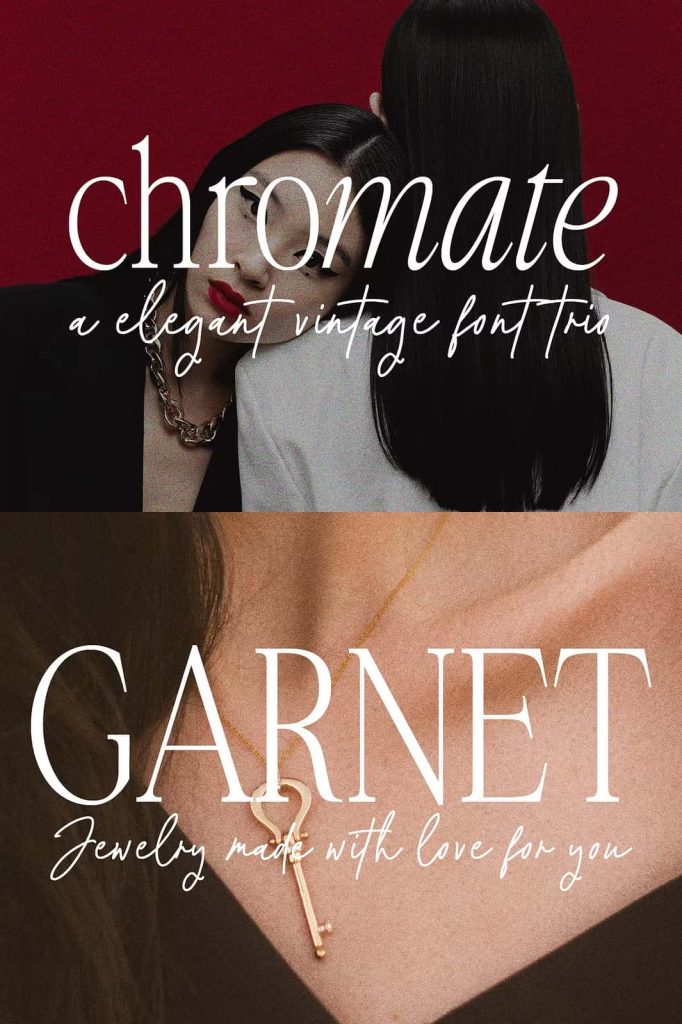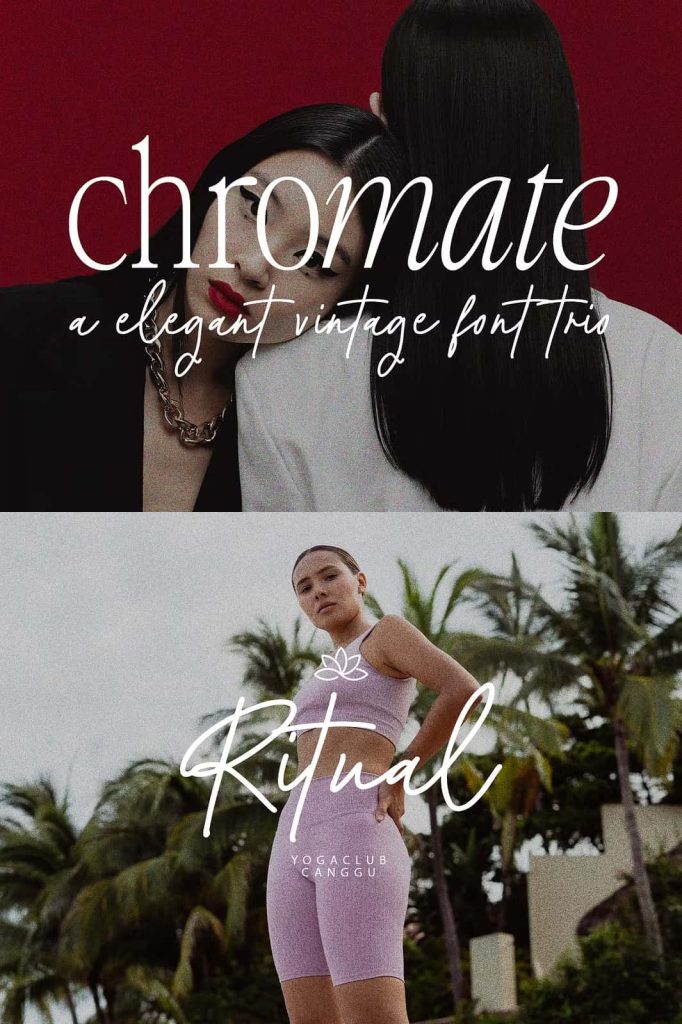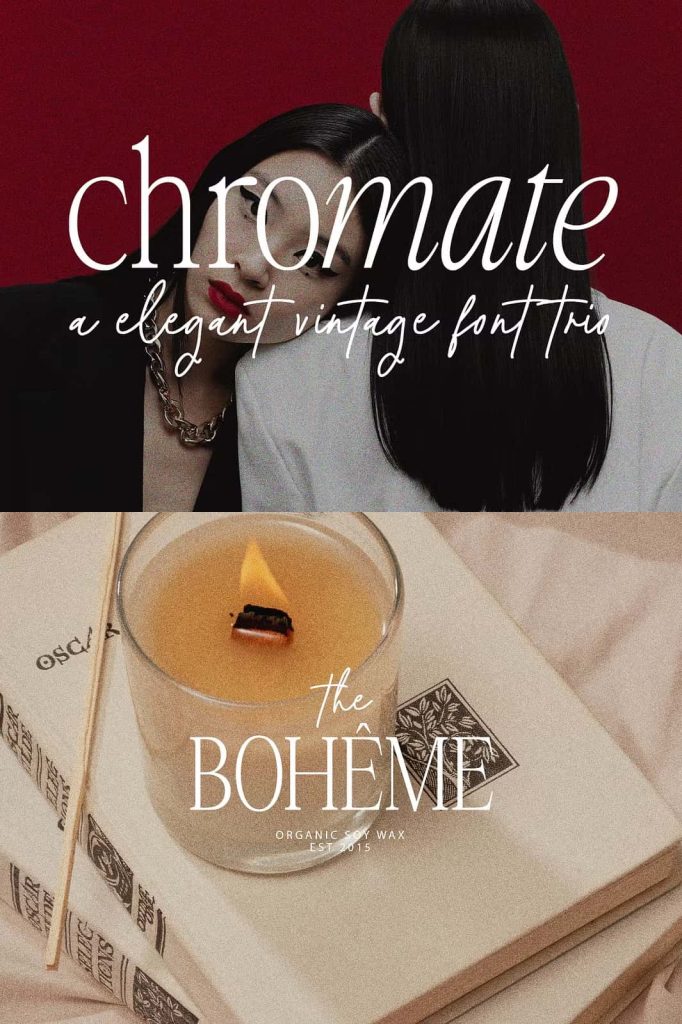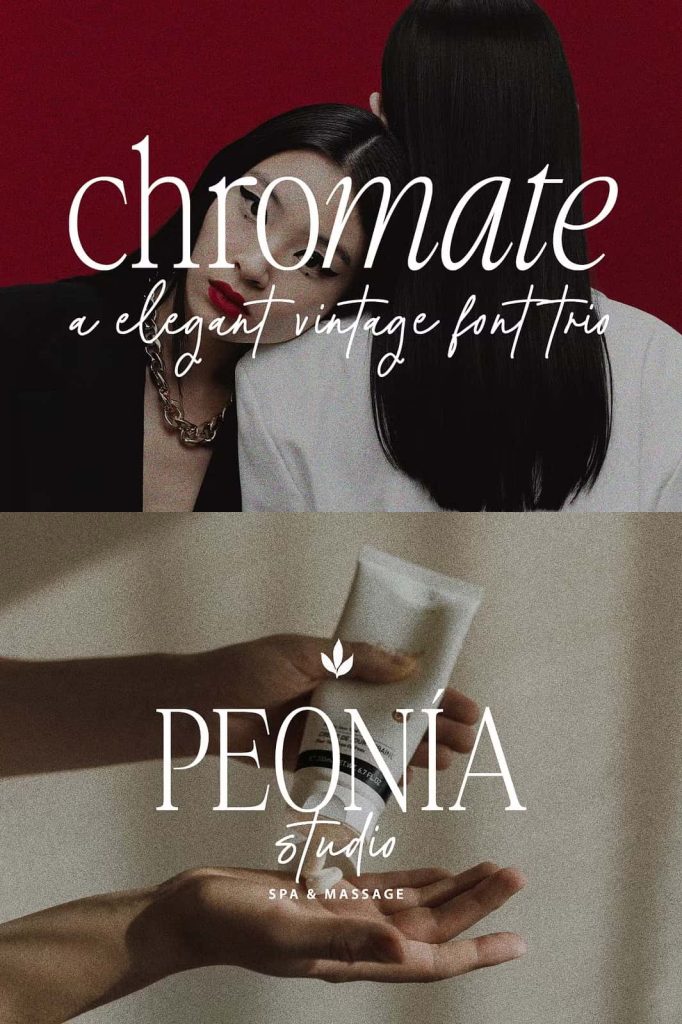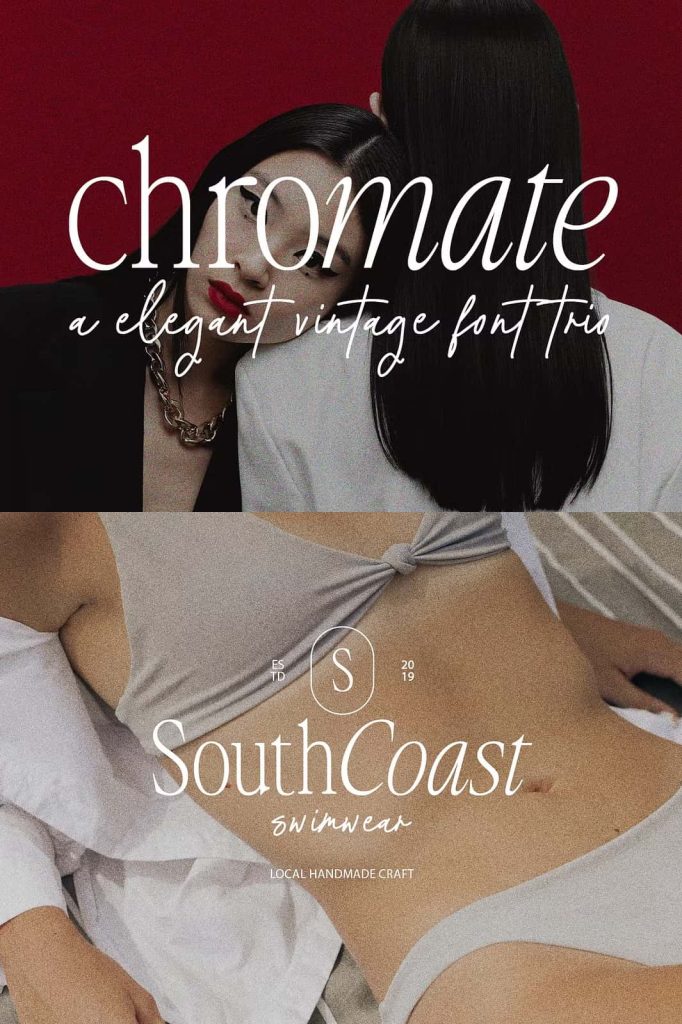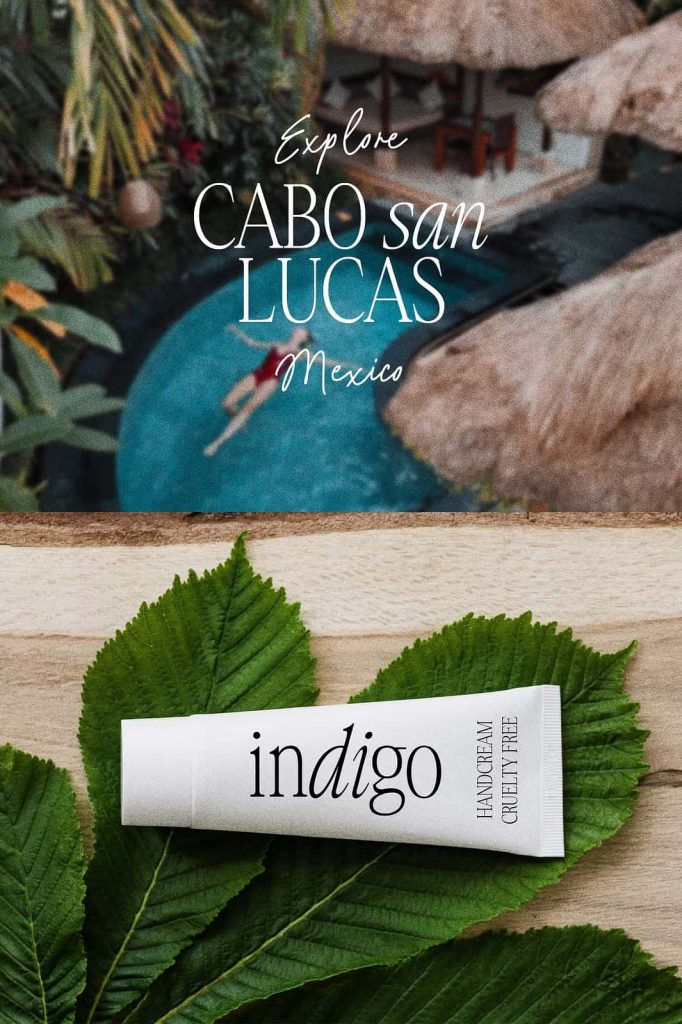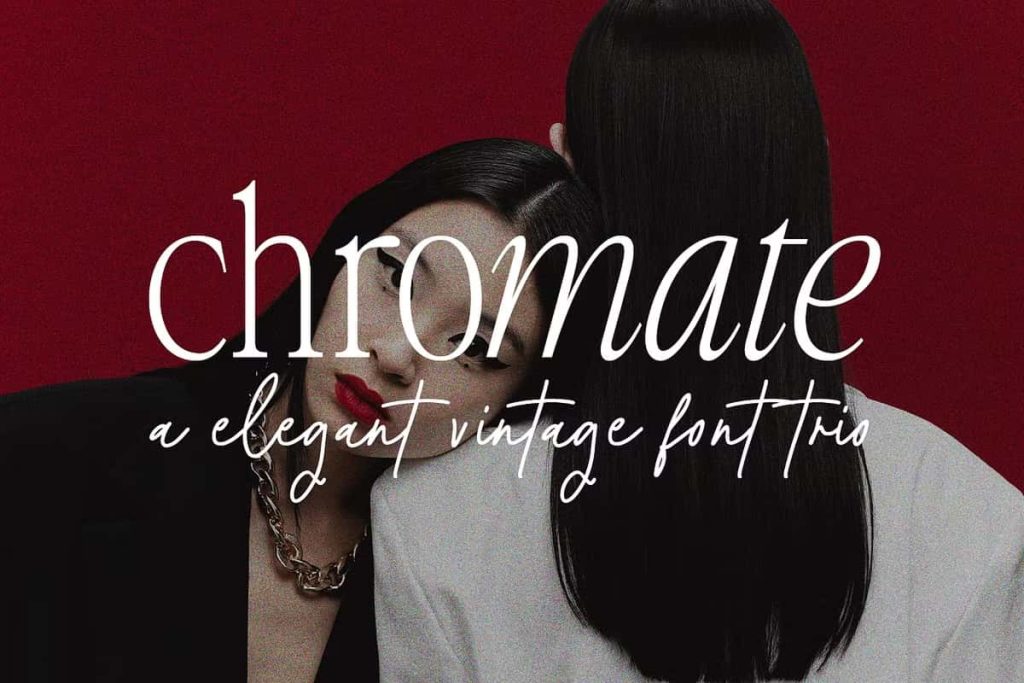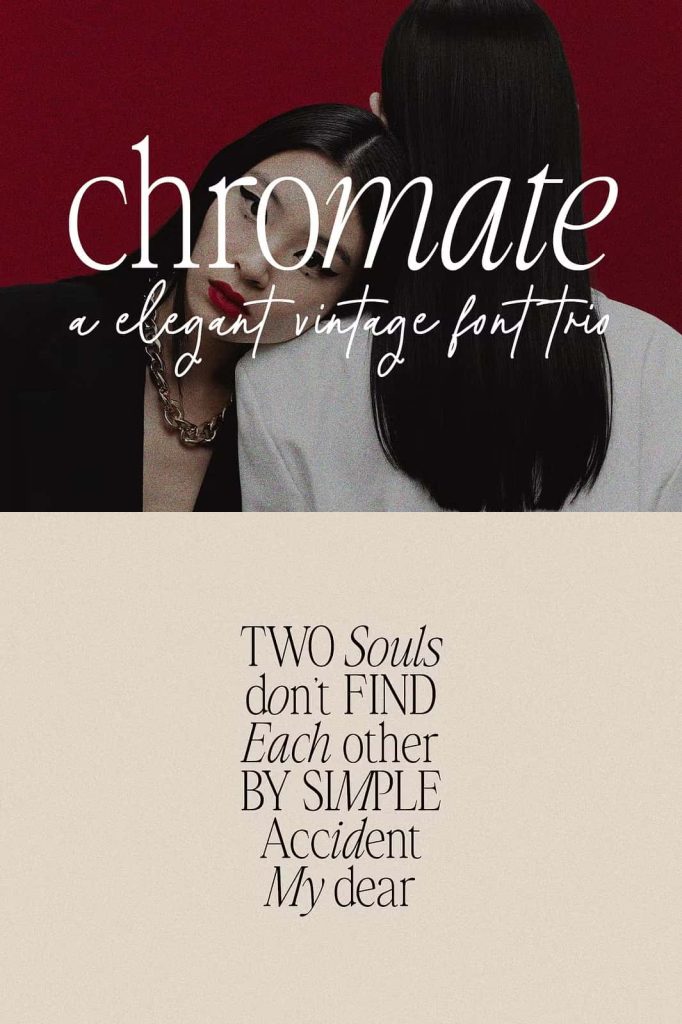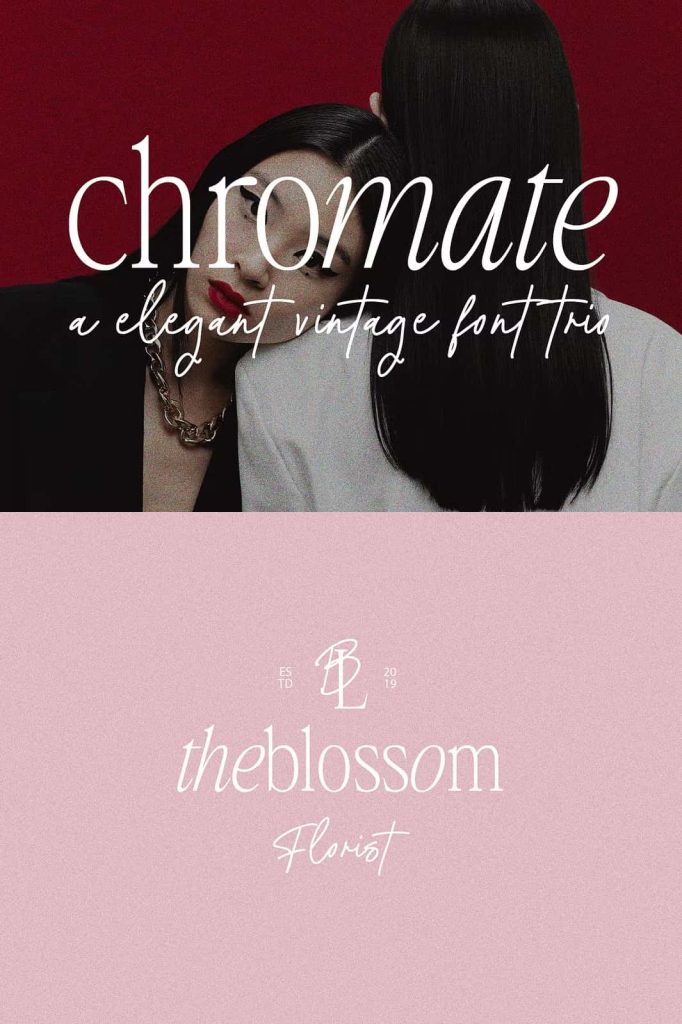
Chromate Retro Font Family
Chromate is a charming retro font family that brings the bold visual energy of the 1980s and 1990s into contemporary graphic design. With three complementary fonts and a dense typographic structure, Chromate gives designers the tools to create powerful layouts filled with nostalgic character. Its retro-inspired appearance immediately captures attention while providing enough versatility for branding, posters, packaging, apparel, advertising, and digital projects.
Inspired by the distinctive visual culture of the 80s and 90s, Chromate combines strong letterforms with a compact structure that creates an impressive retro presence. The family allows you to mix different styles and build typographic compositions with contrast, hierarchy, and personality. Whether you want to recreate the atmosphere of vintage advertising or introduce a subtle nostalgic touch to a modern identity, Chromate gives you plenty of creative possibilities.
A Three-Font Retro Family
Chromate includes three fonts designed to work together as a cohesive family. This variety allows designers to create more dynamic compositions without searching for unrelated typefaces. Use different fonts to establish hierarchy, emphasize important words, or create visual contrast within a single design.
The three-font structure makes Chromate particularly useful for branding systems and promotional campaigns. You can assign one font to the primary logo, another to headlines, and another to supporting graphic elements. This approach creates consistency while keeping the overall design visually interesting.
Authentic 80s and 90s Retro Vibe
Chromate captures the expressive energy associated with typography from the 1980s and 1990s. That era embraced bold visual communication, strong advertising graphics, music culture, colorful packaging, and distinctive lettering. Chromate channels those influences into a modern font family that designers can easily apply to contemporary projects.
The dense structure gives the typography a strong visual weight. Large words immediately become graphic elements, making the family especially effective for headlines, posters, titles, and logos. The compact letterforms also create a powerful rhythm when several words appear together.
Bring Nostalgic Energy to Modern Designs
Retro design does not require an exact reproduction of the past. Chromate allows you to reinterpret nostalgic typography through a modern creative lens. Combine the fonts with contemporary layouts, minimalist compositions, bold photography, or modern colors to create a fresh interpretation of the 80s and 90s aesthetic.
Alternatively, you can embrace the full retro experience by pairing Chromate with vintage textures, geometric patterns, energetic illustrations, and nostalgic graphic elements. The family gives you the flexibility to determine how strongly the retro influence appears in your final composition.
Perfect for Bold Branding
Chromate can give a brand identity an immediate sense of personality. Its dense structure creates strong logos and wordmarks that remain visually prominent even when used alongside other graphic elements. The retro character adds a memorable quality that can help a brand stand apart from more conventional typography.
Use Chromate for clothing brands, music projects, entertainment businesses, restaurants, creative studios, sports-inspired brands, lifestyle companies, retail businesses, and youth-focused products. The three fonts allow you to build a complete typographic identity rather than relying on a single display treatment.
Create Memorable Logos and Wordmarks
Use the strongest Chromate style for a logo or wordmark and introduce the other fonts throughout the wider identity. Experiment with scale, spacing, alignment, and color to emphasize the dense structure of the lettering. Short brand names and slogans can become powerful visual marks when displayed at a large size.
The compact structure also works well for badge-style logos, labels, emblems, and stacked typography. These applications can reinforce the vintage character while giving the brand a strong and recognizable presence.
Posters and Advertising Graphics
Chromate performs exceptionally well in poster design because its dense letterforms create immediate visual impact. Use the font family for event posters, music promotions, advertising campaigns, festival graphics, movie-inspired artwork, product launches, and promotional materials.
Large headlines can dominate the composition while the other family members provide supporting information. This creates a clear hierarchy and allows you to communicate important messages quickly. Add geometric shapes, photography, textures, or retro-inspired illustrations to strengthen the overall visual direction.
Packaging with Retro Personality
Packaging designers can use Chromate to create products that immediately communicate nostalgia and character. Its dense structure makes product names, collection titles, and promotional messages highly visible. This can help products stand out both on physical shelves and in online product listings.
If you want to give your next design a strong retro vibe while maintaining the flexibility needed for modern creative work, Chromate provides a distinctive and versatile typographic solution.